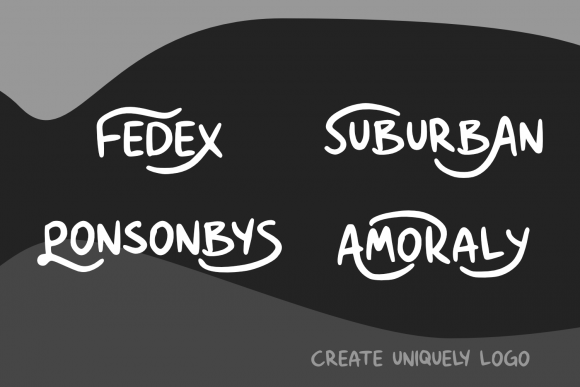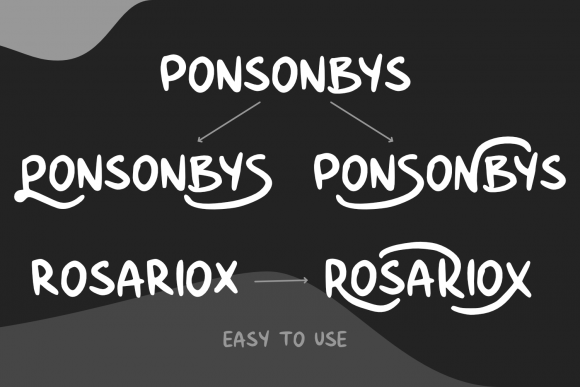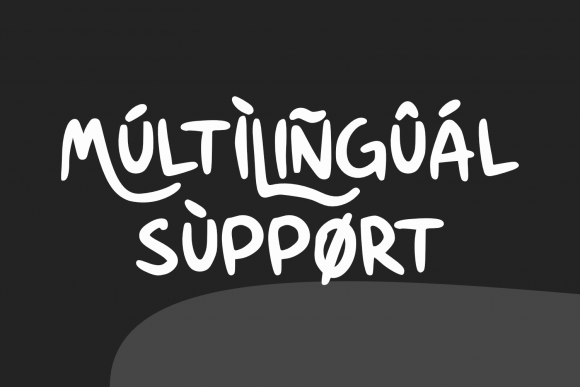
Introduction to Nesora Font
Remember the moment when a perfect font finally completes your creative project, and everything falls into place? It’s a feeling like no other – the perfect harmony of typography and design that instantly elevates your work to the next level. This is exactly what the Nesora Font promises to deliver.
As a designer, you know how crucial the right font can be in making your design stand out. With the Nesora Font, you’ll get a simple yet powerful tool that can instantly add a touch of sophistication to your work. This high-quality display font boasts a unique, organic design that’s sure to make your creations more appealing than ever.
Nesora Font
- High-quality, professional design perfect for various creative projects.
- Unique, elegant script font ideal for adding a touch of sophistication to your design resource.
- Designed to be highly legible and versatile, suitable for a wide range of design applications.
Honest Review: Nesora Font
I recently had the chance to experiment with the Nesora Font, a high-quality, free download for creative projects. As a designer, I appreciate the transparency of the font’s background and the effort that went into its creation.
What works well: ✨ The Nesora Font’s sleek and modern design makes it an excellent addition to any project. The font’s versatility allows it to be used in a wide range of creative projects, from logos to brochures. The font’s high quality ensures that it looks great in print or digital formats.
What doesn’t work well: ⚠️ While the Nesora Font is free to download, it’s not without its limitations. The font’s availability in limited languages and font weights might be a concern for designers working on international projects. Additionally, the font’s licensing terms may not be as permissive as some designers might prefer.
Overall, I’m impressed with the Nesora Font’s potential as a design resource. While it may have some limitations, its high quality and versatility make it a valuable addition to any designer’s toolkit.
- Modern and versatile design
Nesora Font
Nesora Font is a high-quality, free design resource ideal for creative projects. Its transparent background makes it versatile for use in various design applications.
Nesora Font is suitable for various design projects, including:
- Branding and logos
- Infographics and data visualizations
- Presentations and reports
- Websites and digital products